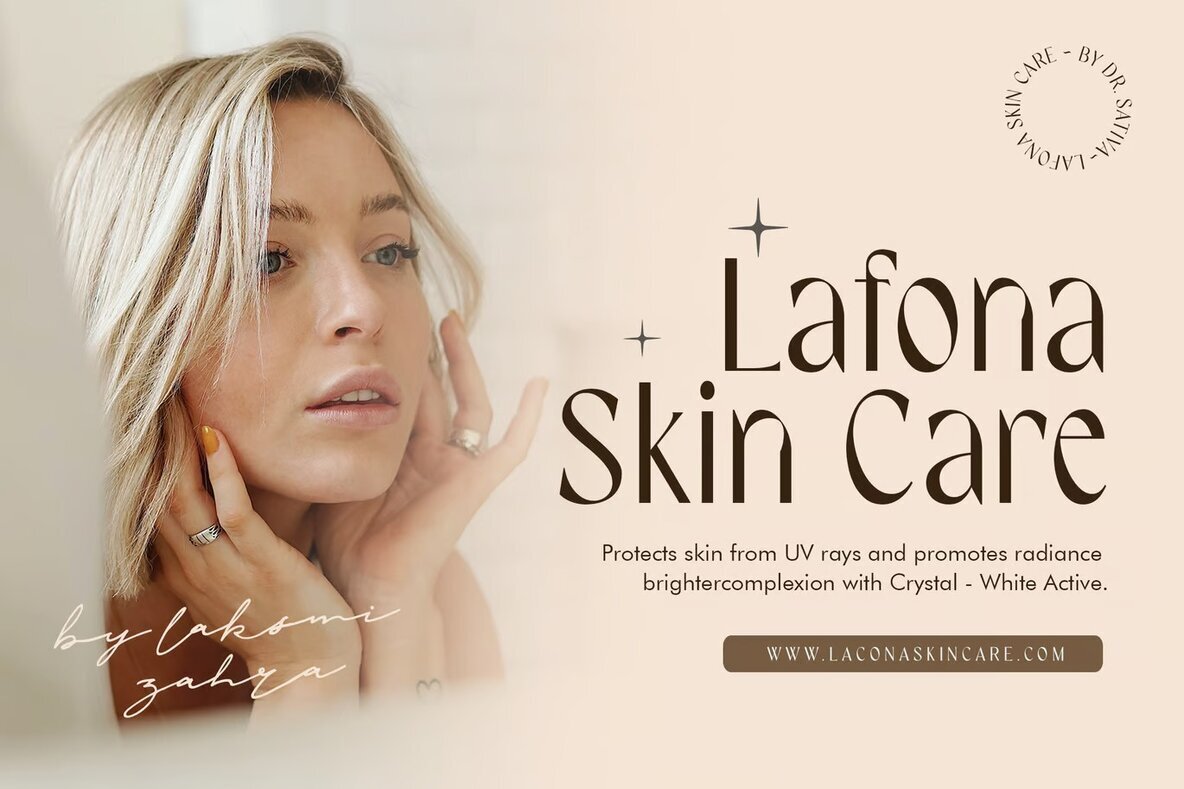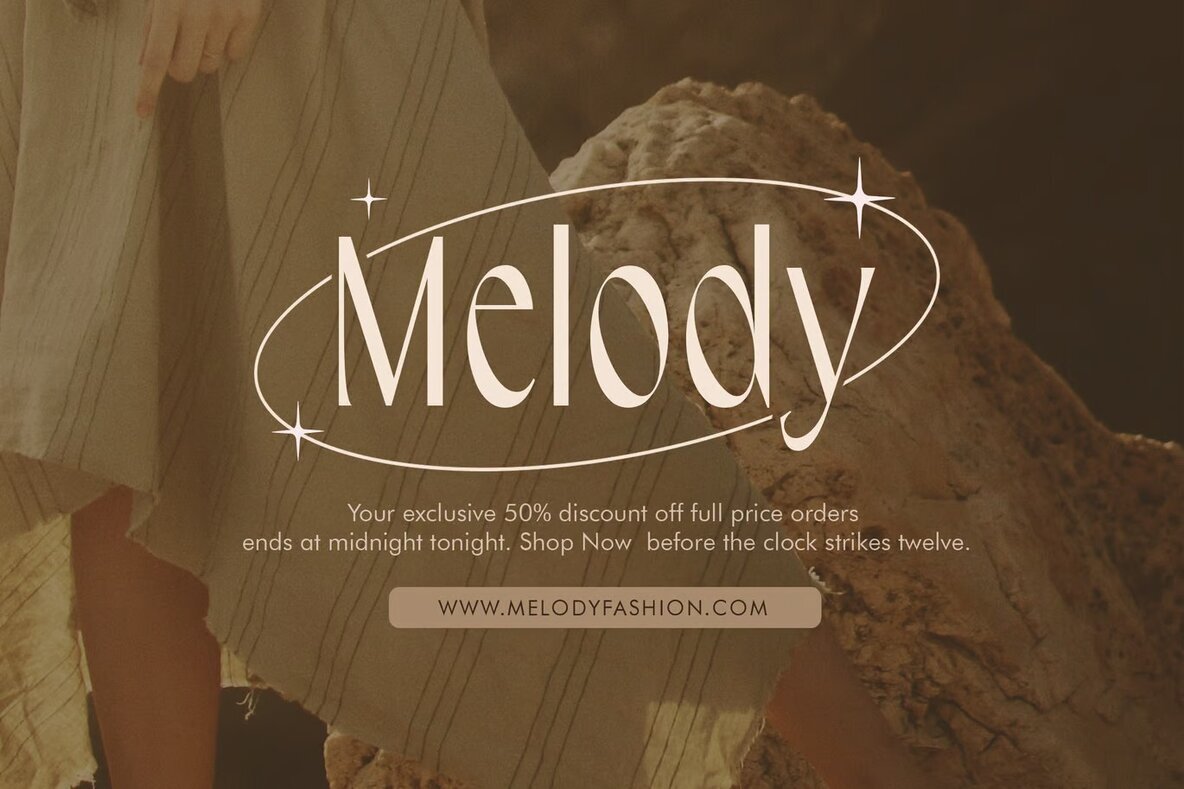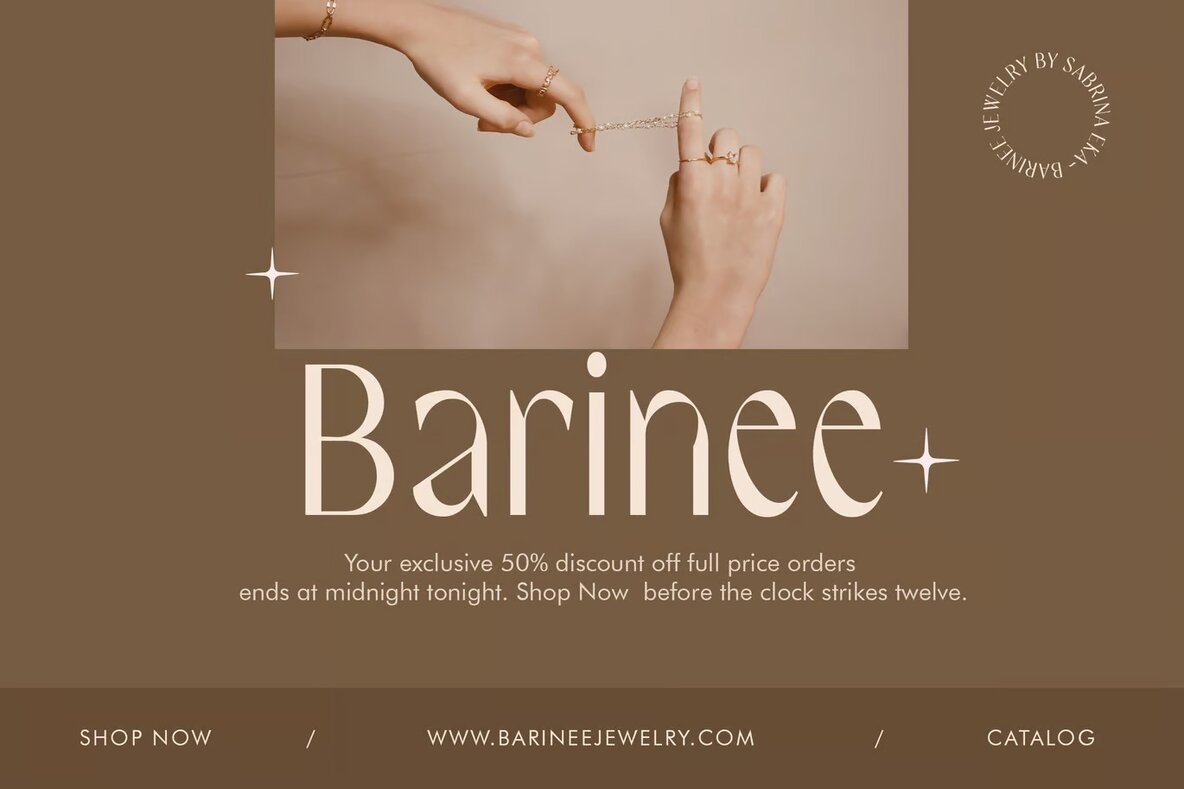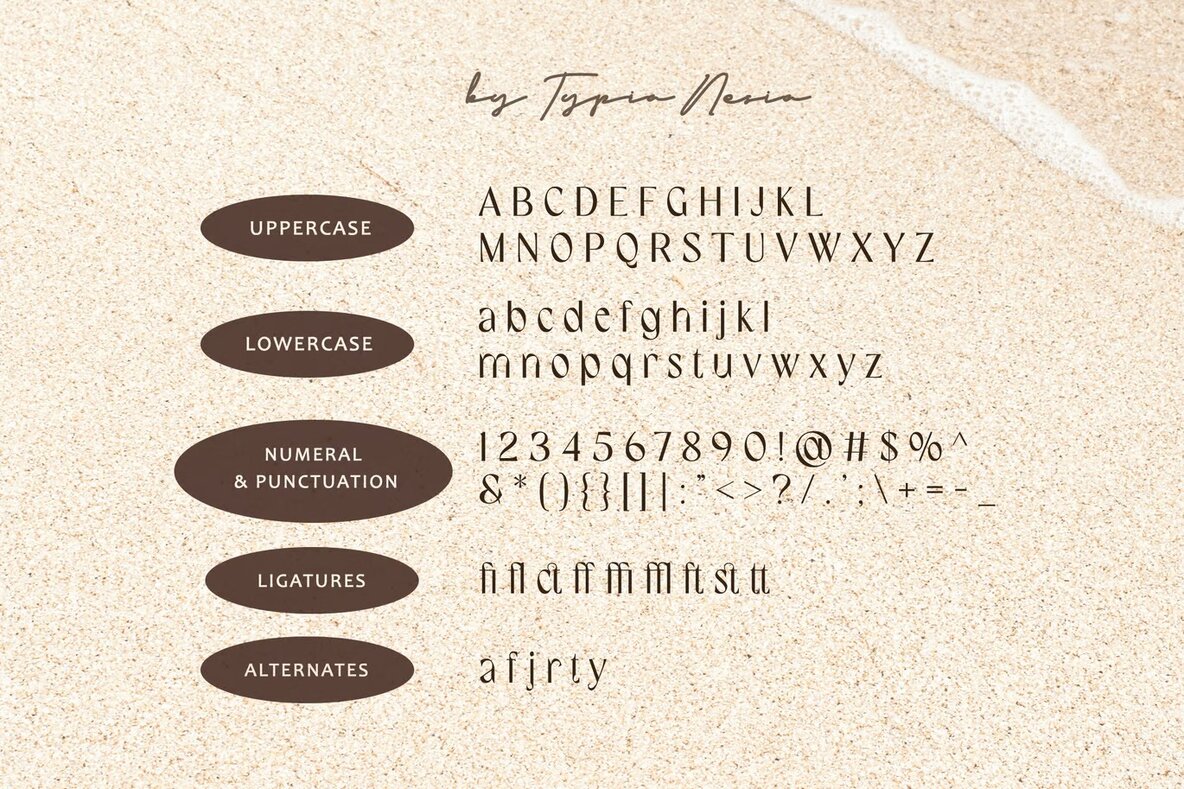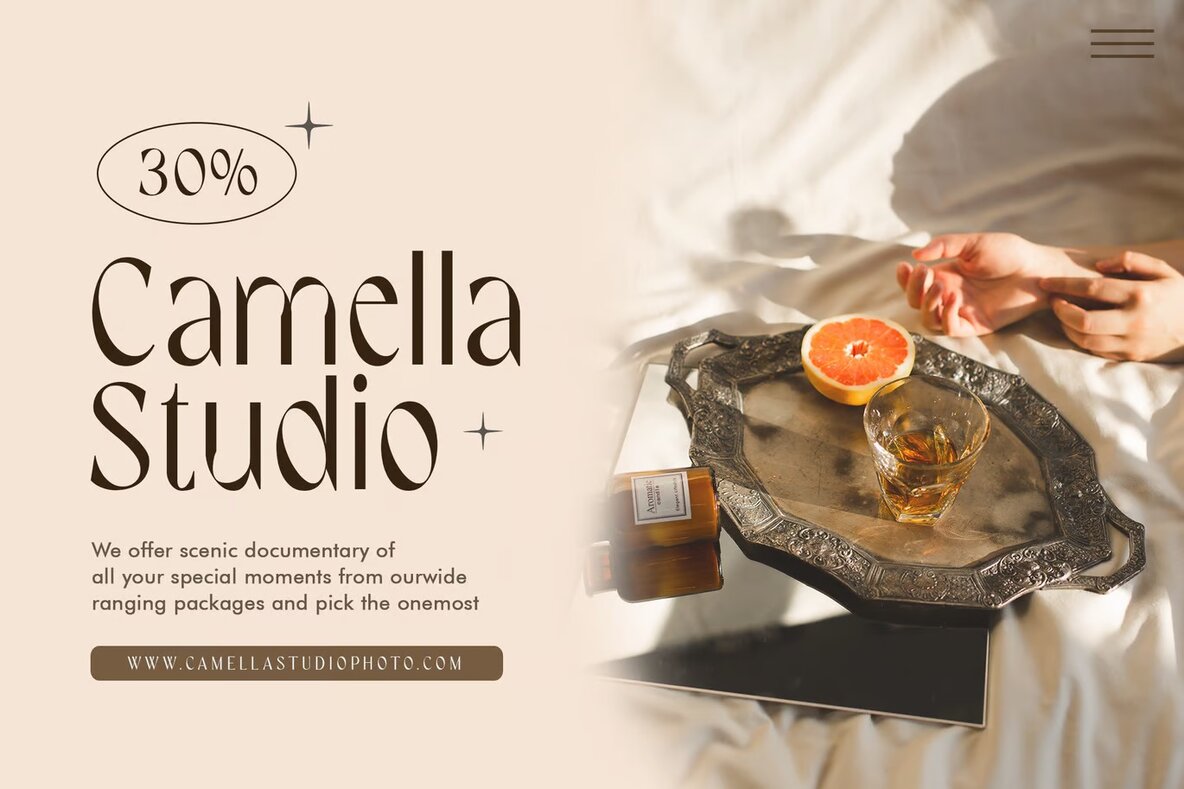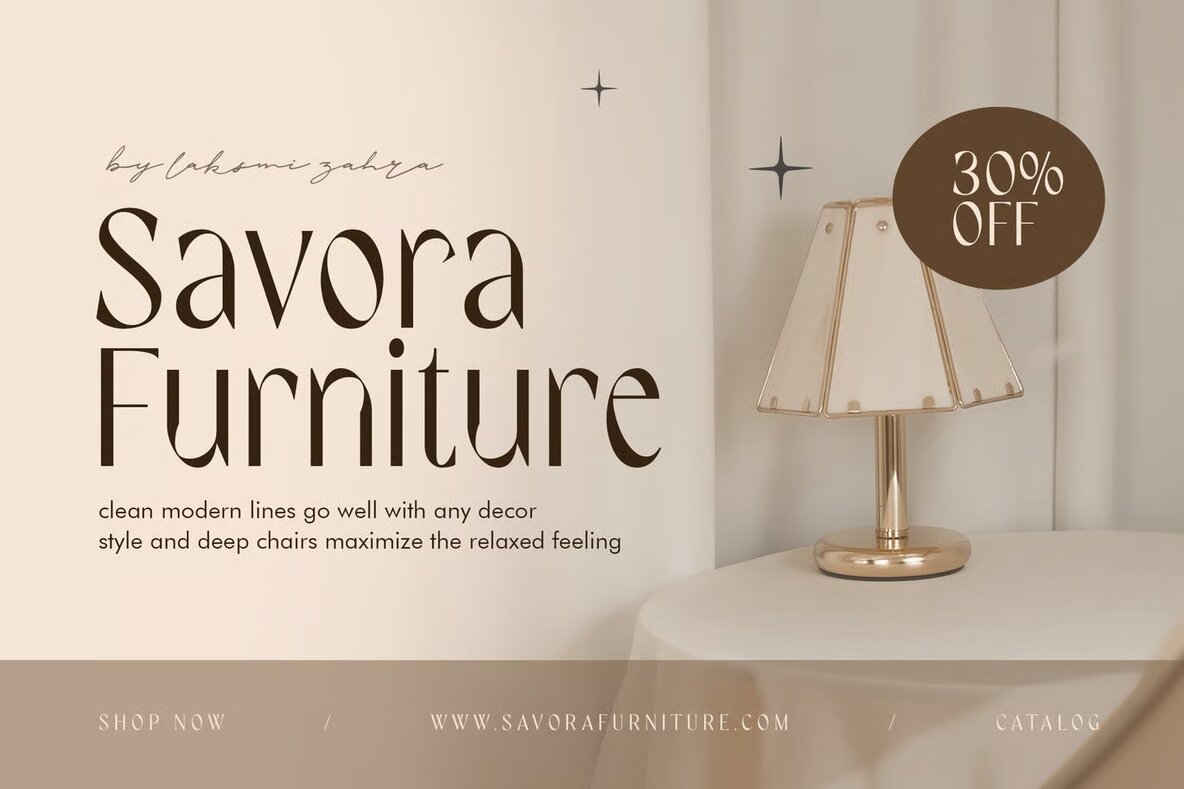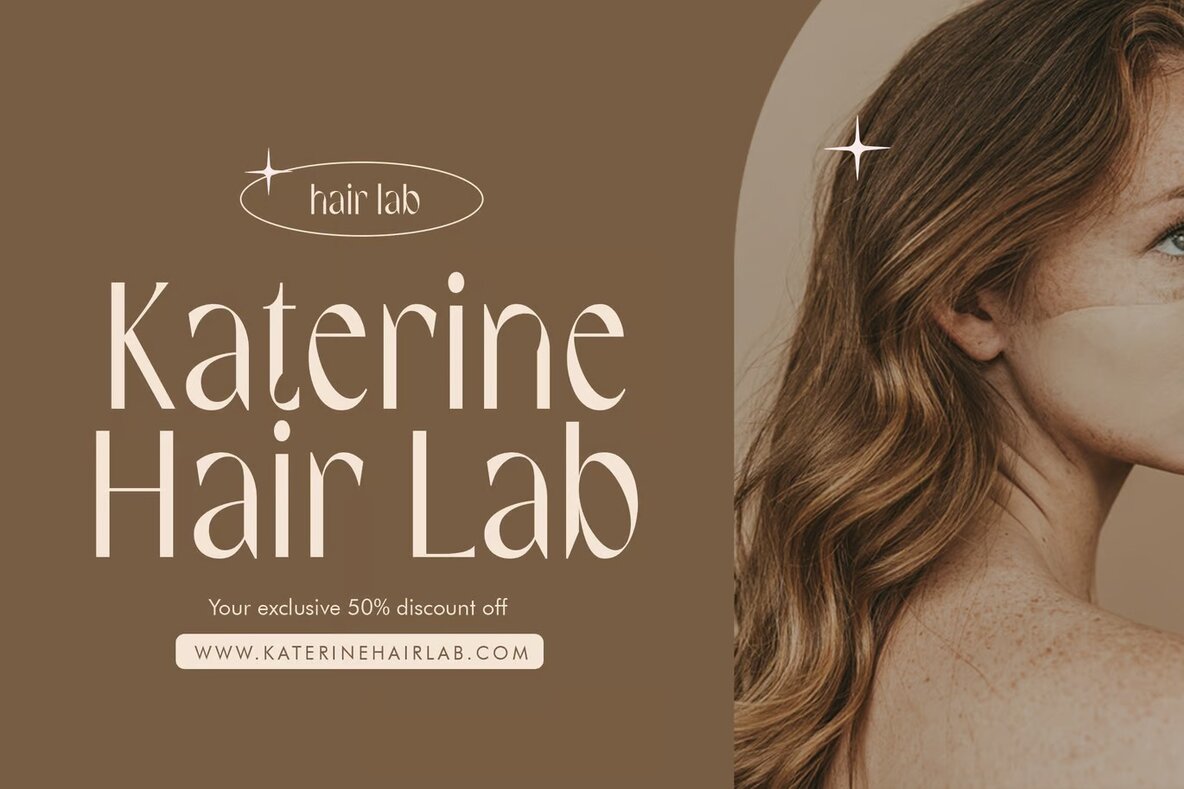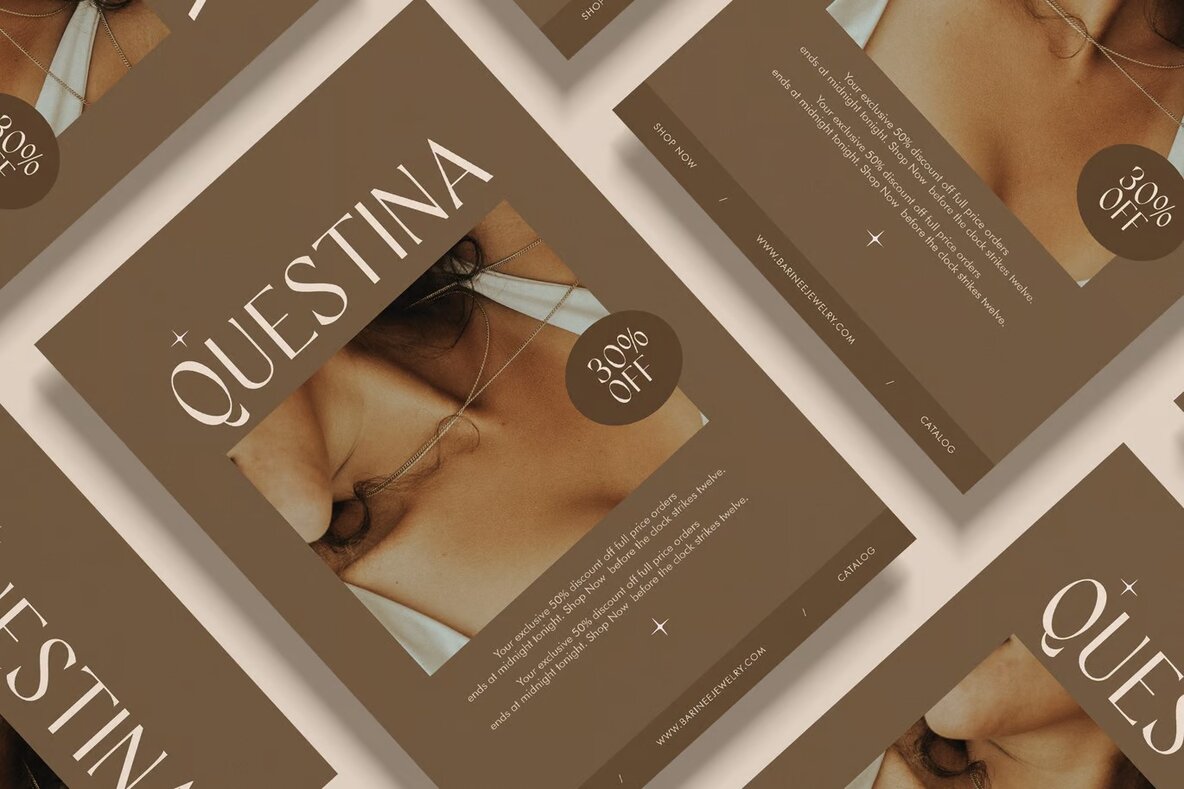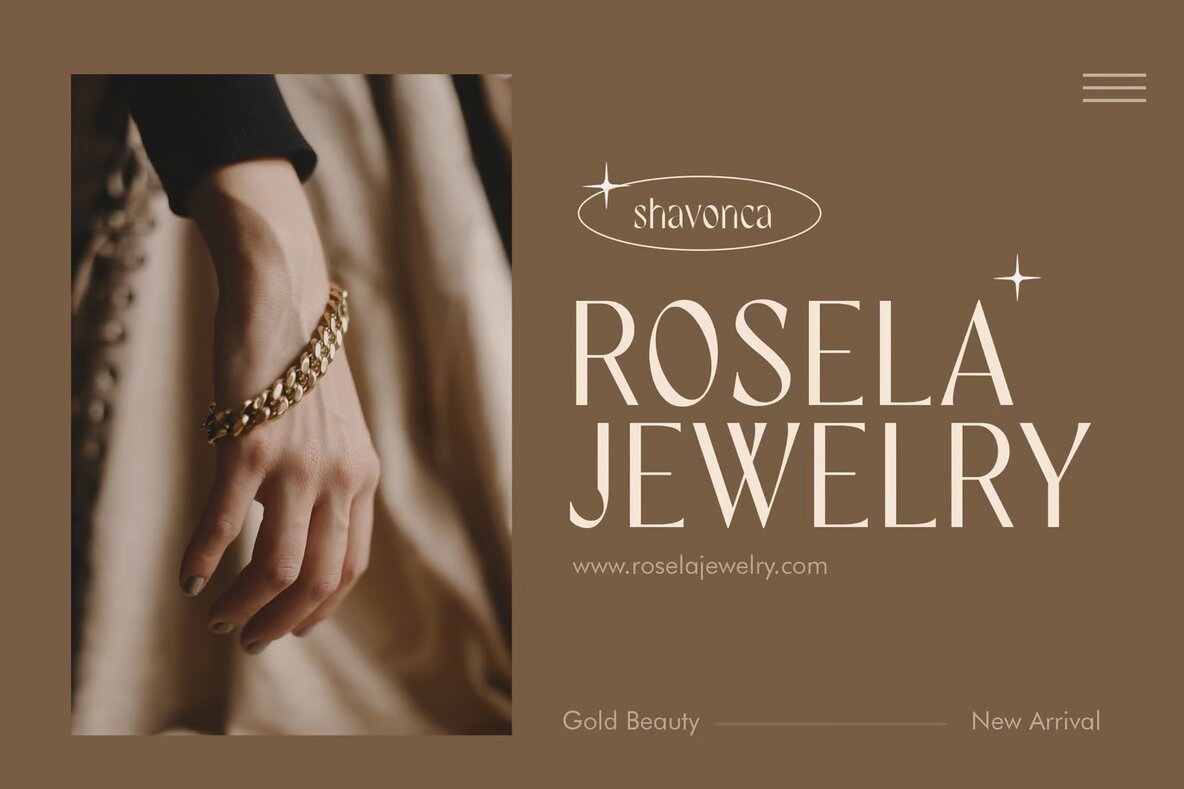
Shavonca Font
Shavonca Regular
Shavonca is a modern, elegant sans-serif font that bridges the gap between classy and contemporary design. Perfect for a multitude of creative ventures, Shavonca's unique alternates and ligatures offer versatile typography solutions. Whether you're working on logos, branding projects, or modern advertising designs, this font brings a distinctive touch that stands out.
Ideal for vintage and retro themes as well, Shavonca excels in projects such as holiday and travel designs, fashion lookbooks, film titles, posters, book covers, and editorial layouts. This font can also add flair to websites, blogs, and various card designs, making it a versatile choice for any graphic designer's toolkit.